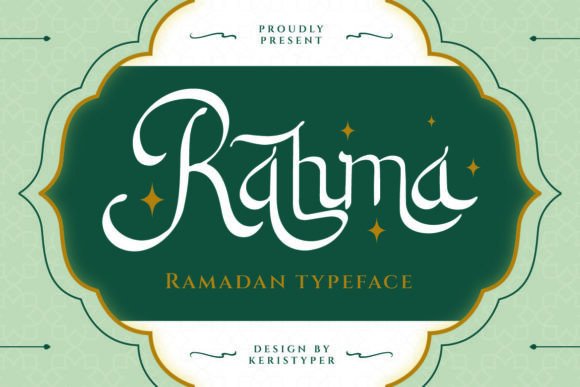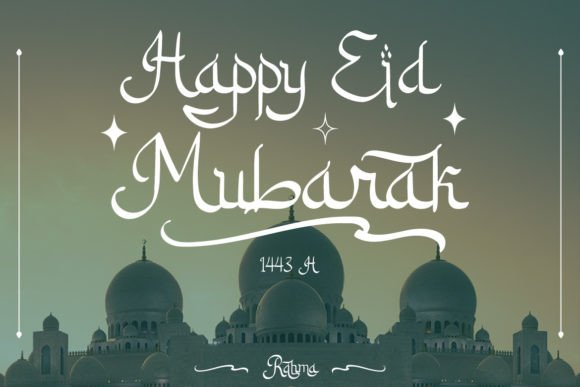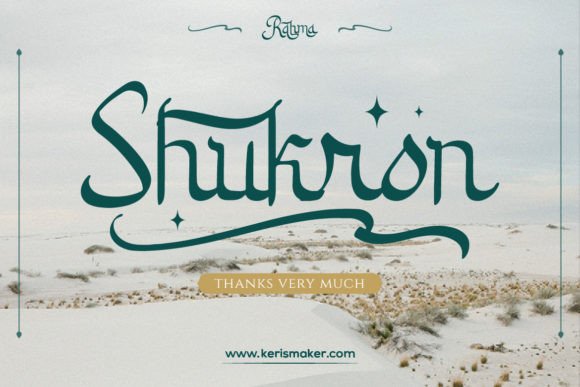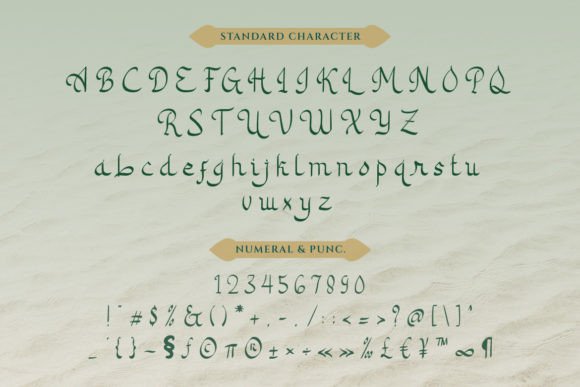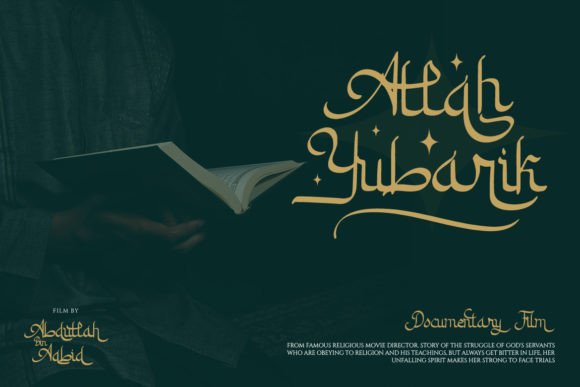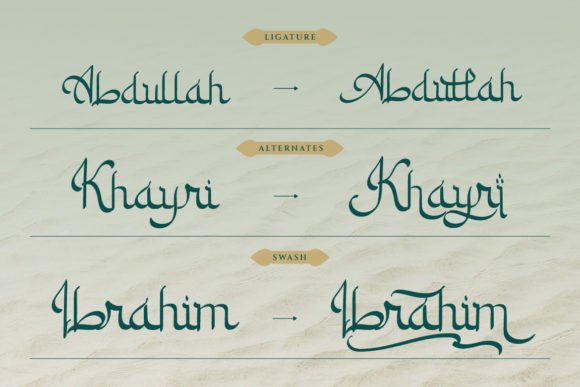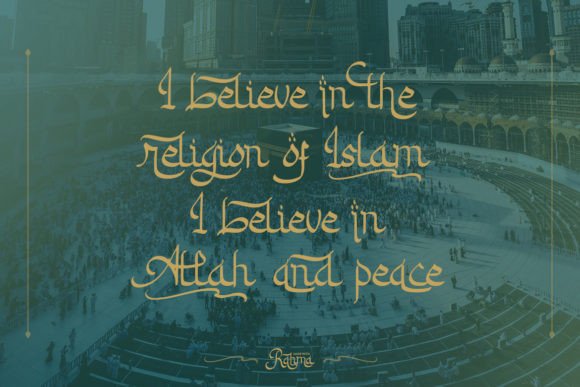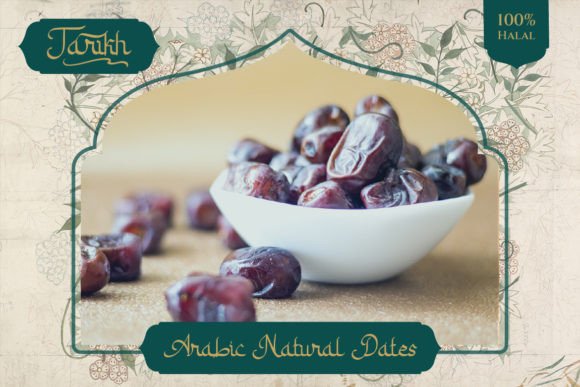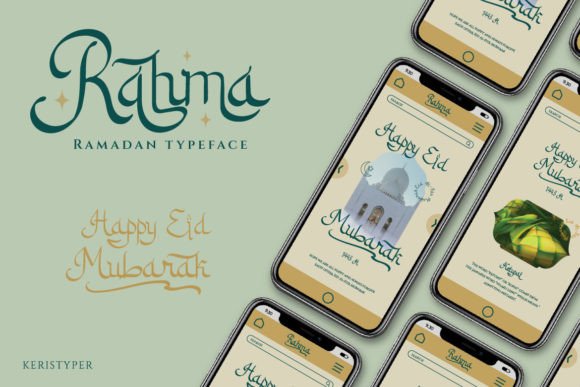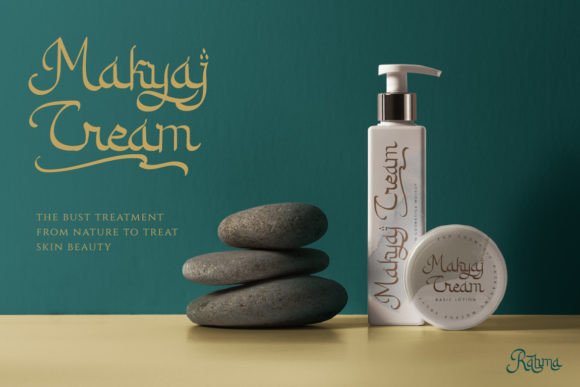
Rahma Font
About Rahma Font
Introducing “Rahma,” a display font inspired by Arabic style. Designed with a digital flat-pen and gothic typography technique, it offers an elegant look to the letters. This versatile font is suitable for various design applications, making it ideal for logo design, social media, movie titles, books titles, short text, long text letters, and as a secondary text font paired with sans or serif styles.
The unique combination of digital flat-pen and gothic typography techniques in “Rahma” gives it a distinctive and elegant appearance. This font is crafted to bring a touch of sophistication and cultural richness to your designs.
In logo design, “Rahma” becomes a standout choice, especially for brands with a connection to Arabic or gothic aesthetics. Its unique style adds a memorable and distinctive element to your brand identity.
For social media, “Rahma” contributes to visually appealing and engaging posts. Whether used for captions, headers, or quotes, this font adds a touch of elegance and cultural richness to your content.
In movie titles, “Rahma” brings a cinematic and artistic quality. Its display font style is well-suited for creating titles that stand out and capture the essence of the movie.
For books titles, the elegant and readable design of “Rahma” makes it a versatile choice. It complements different genres and provides a unique and stylish element to the overall book design.
The adaptability of “Rahma” extends to being a secondary text font. Paired with sans or serif styles, it harmoniously complements the primary font and adds a cultural and elegant touch to secondary text elements.
In summary, “Rahma” is a display font that draws inspiration from Arabic style, offering an elegant and sophisticated look. Whether used for logos, social media, movie titles, books, or as a secondary font, it brings a unique cultural richness to your designs.